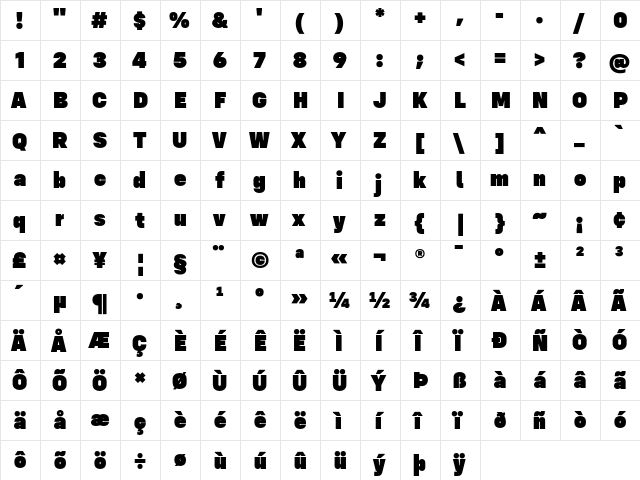
Config Ultra Regular
| Foundry | Adam Ladd |
| Designer | Adam Ladd |
Design Context for Config Ultra Typeface
Config Ultra is a composed and adaptable typeface that performs quietly and consistently across a wide range of design contexts.